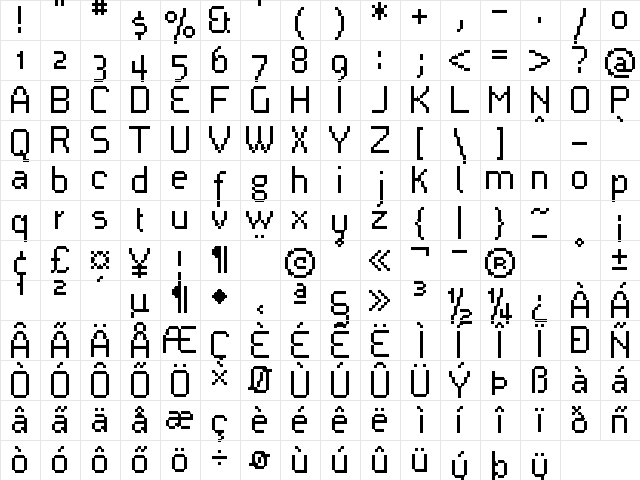
UF PT Bossa Duo Regular
| Foundry | Ultrafonts |
| Designer | Hugo Perez of PixieType |
Design Context for UF PT Bossa Duo Typeface
UF PT Bossa Duo takes a measured approach to typography — its balanced proportions and neutral character make it a reliable workhorse for both digital and print work.